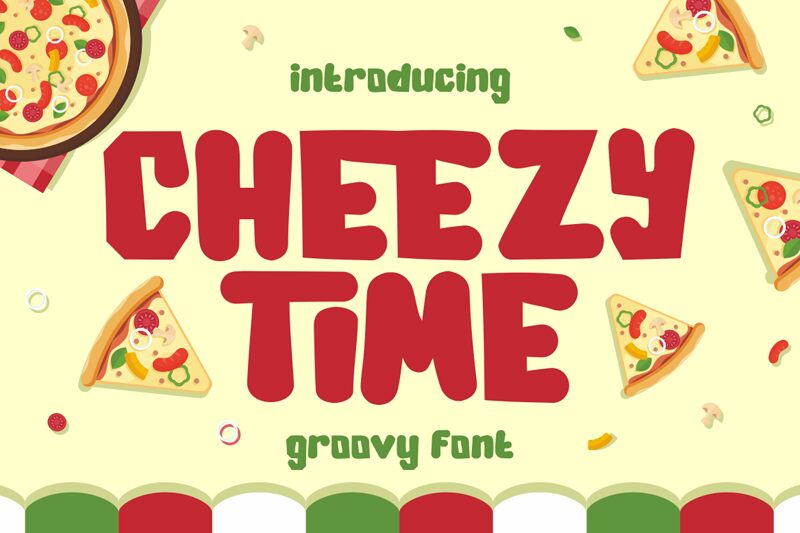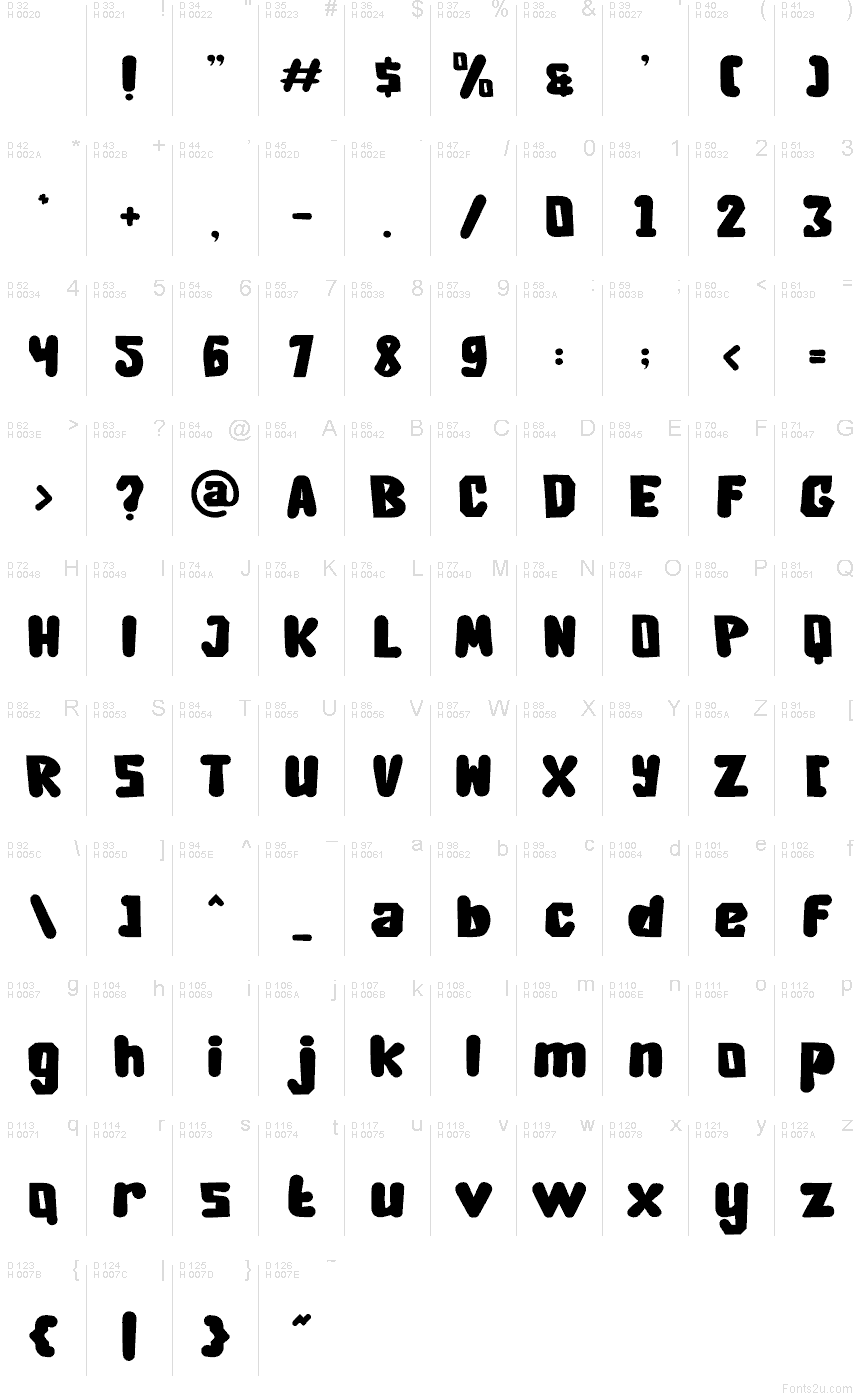
Cheezy Time by Shanaf Studio is a free cartoon display font with a chunky, bubbly rhythm and a faint retro snack-bar vibe. The letters feel puffed up and playful, with blunt corners, heavy curves, and little cut-in notches that keep the shapes from turning too soft.
It fits naturally in candy packaging, kids' event posters, comic-style headlines, YouTube thumbnails, and cafe branding where the wording needs a goofy, oversized bounce. As a free font, it also makes sense for title cards, sticker designs, and short logo work, because the broad silhouettes and quirky inner cuts give even a few letters plenty of character.